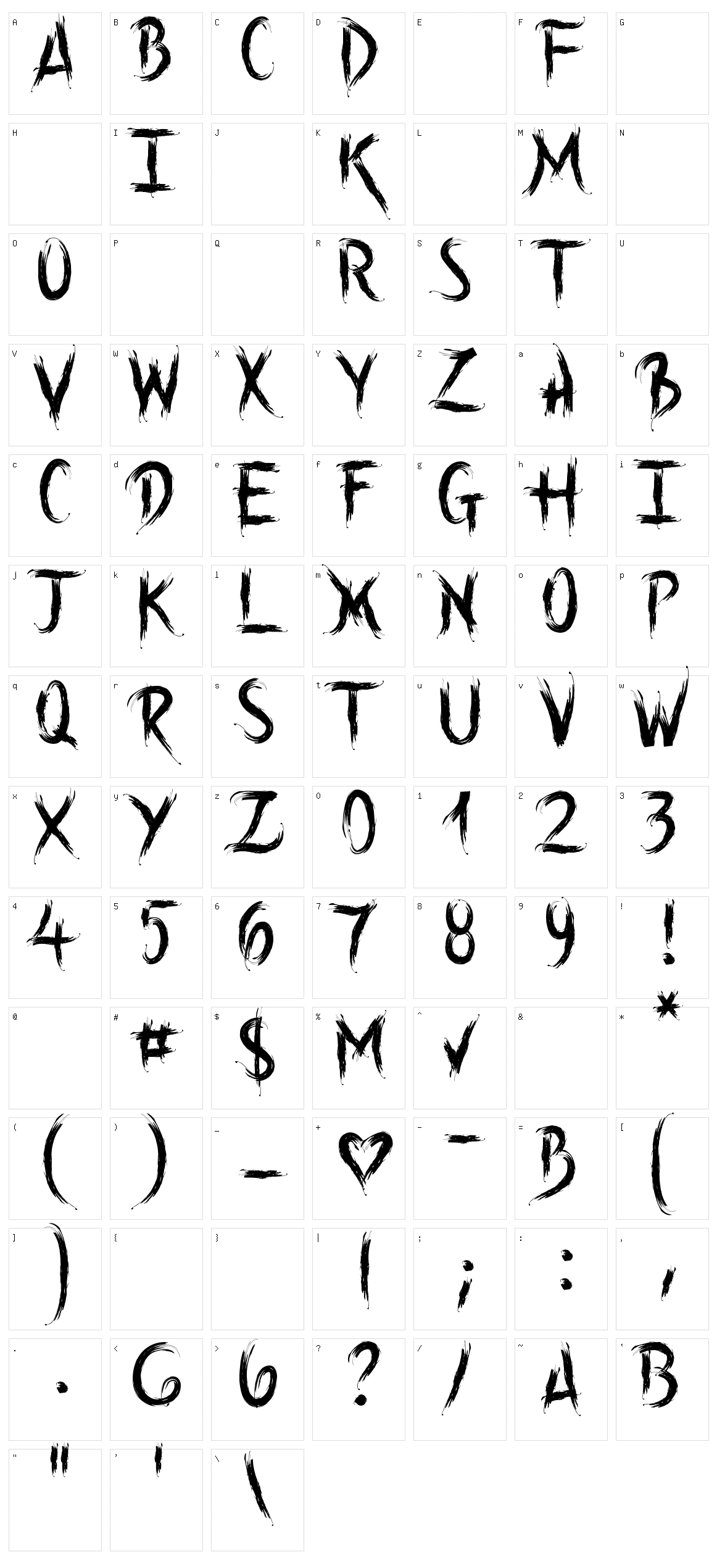
The free font Into the Wild is carefully designed by Poemhaiku, showcasing a thoughtful balance of creativity and usability and falls under the Horror font style. When you download the ZIP file, it contains only 911.53 KB of font files, making it lightweight and quick to download. Please review the license details below to understand permitted usage and distribution rights. If license information is not available, we recommend using this font for personal projects only or contacting the author directly for commercial usage permissions.